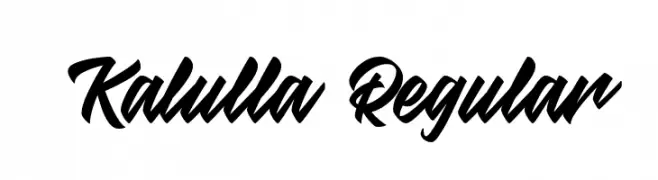
A bold, cursive font with a playful and dynamic style, ideal for vintage or retro-themed projects.
A bold, flowing script font with smooth, connected letters.
A lively and energetic script font with fluid, cursive strokes.
An elegant, flowing script font with a natural handwritten style.
A bold, expressive handwritten font with brush-like strokes and dynamic character.
A bold, brush-style font with a dynamic and artistic flair.
A bold, expressive script font with fluid, interconnected strokes.
A lively, flowing handwritten script with elegant, cursive letterforms.